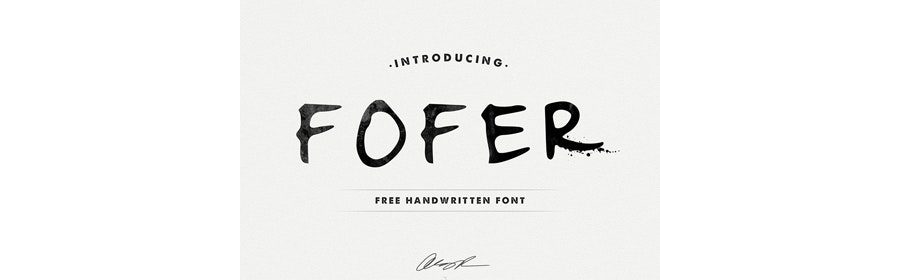
Fofer Free Font
Fofer font is a cool handwriting font with personality. Great to give a personal styles on your design with it’s irregular shape and natural flows.